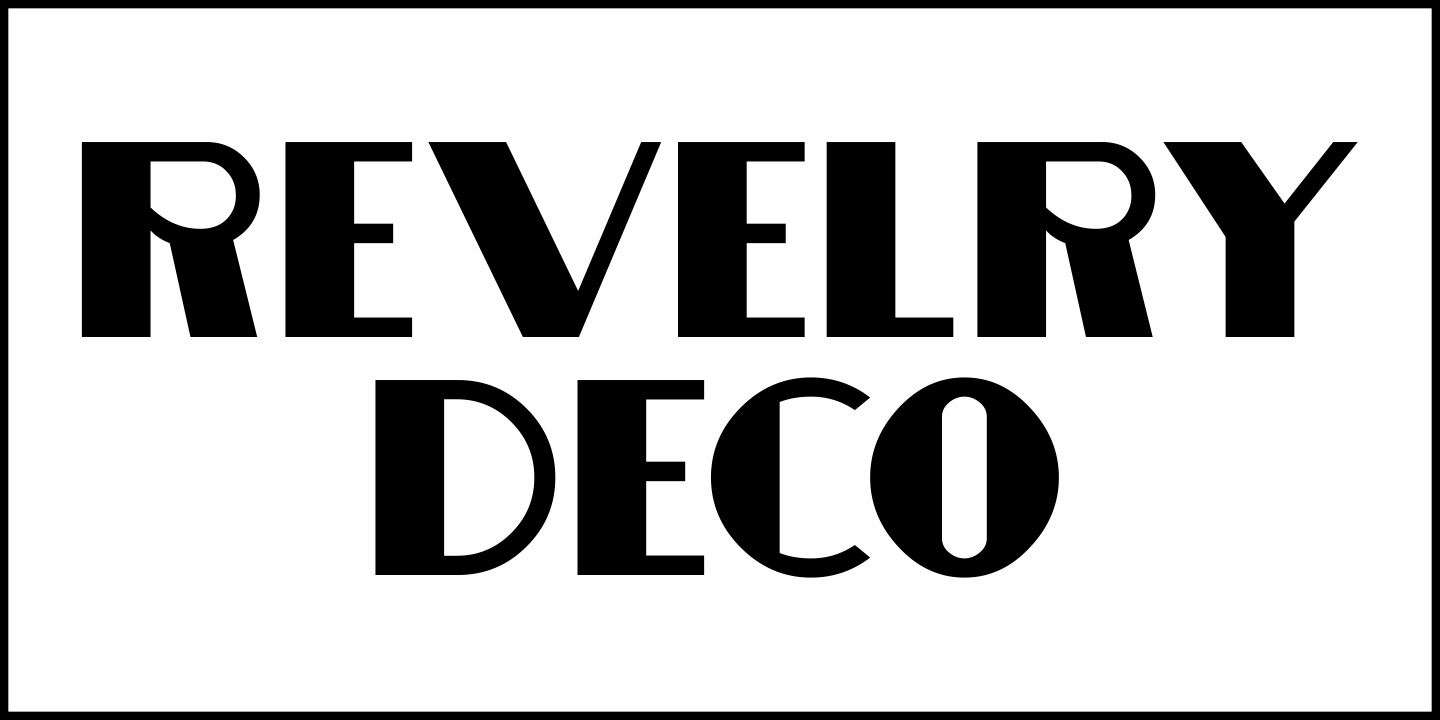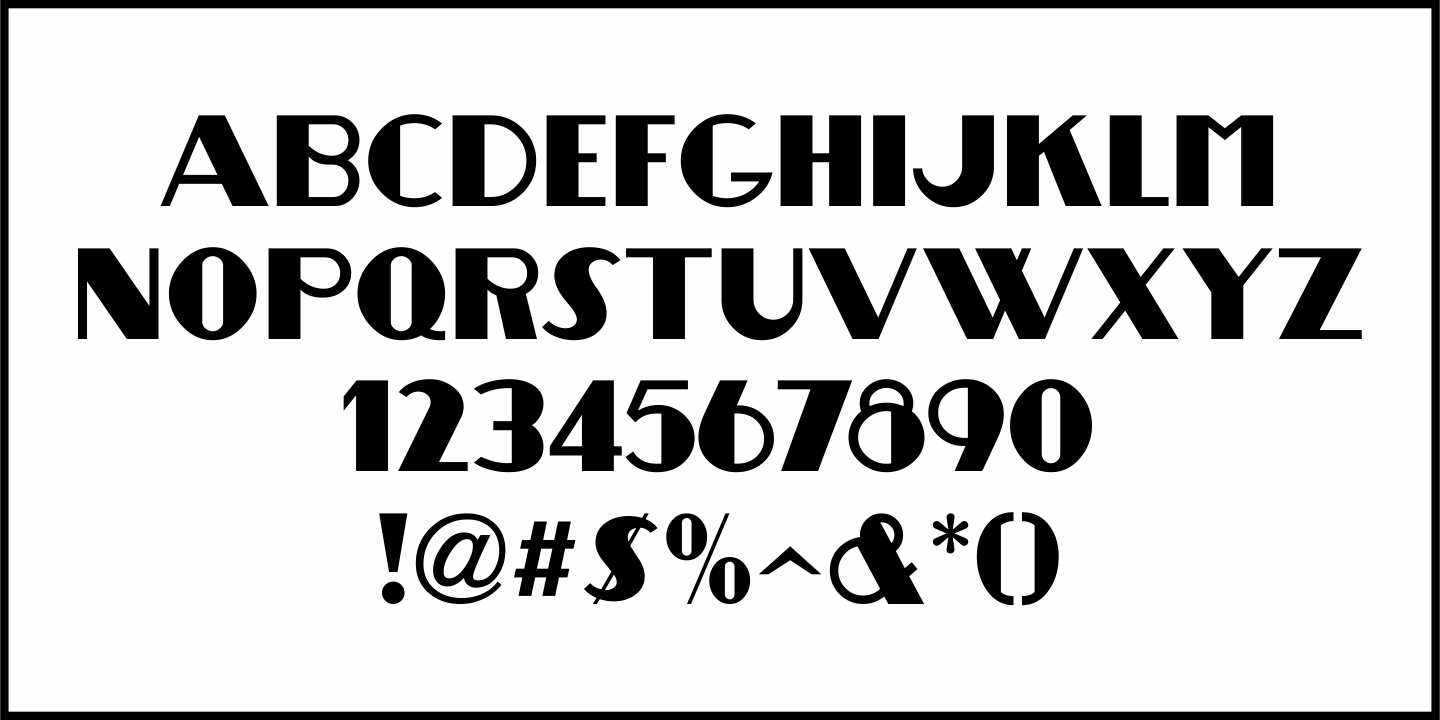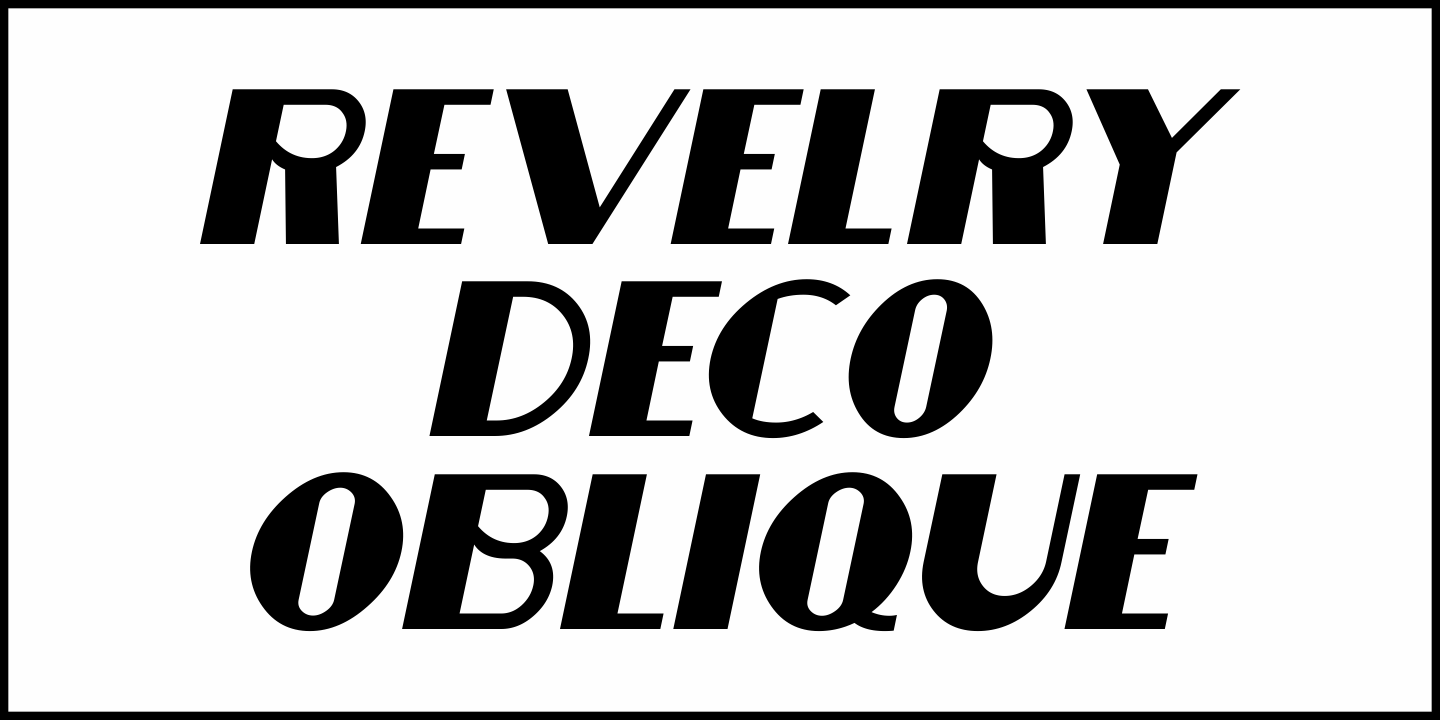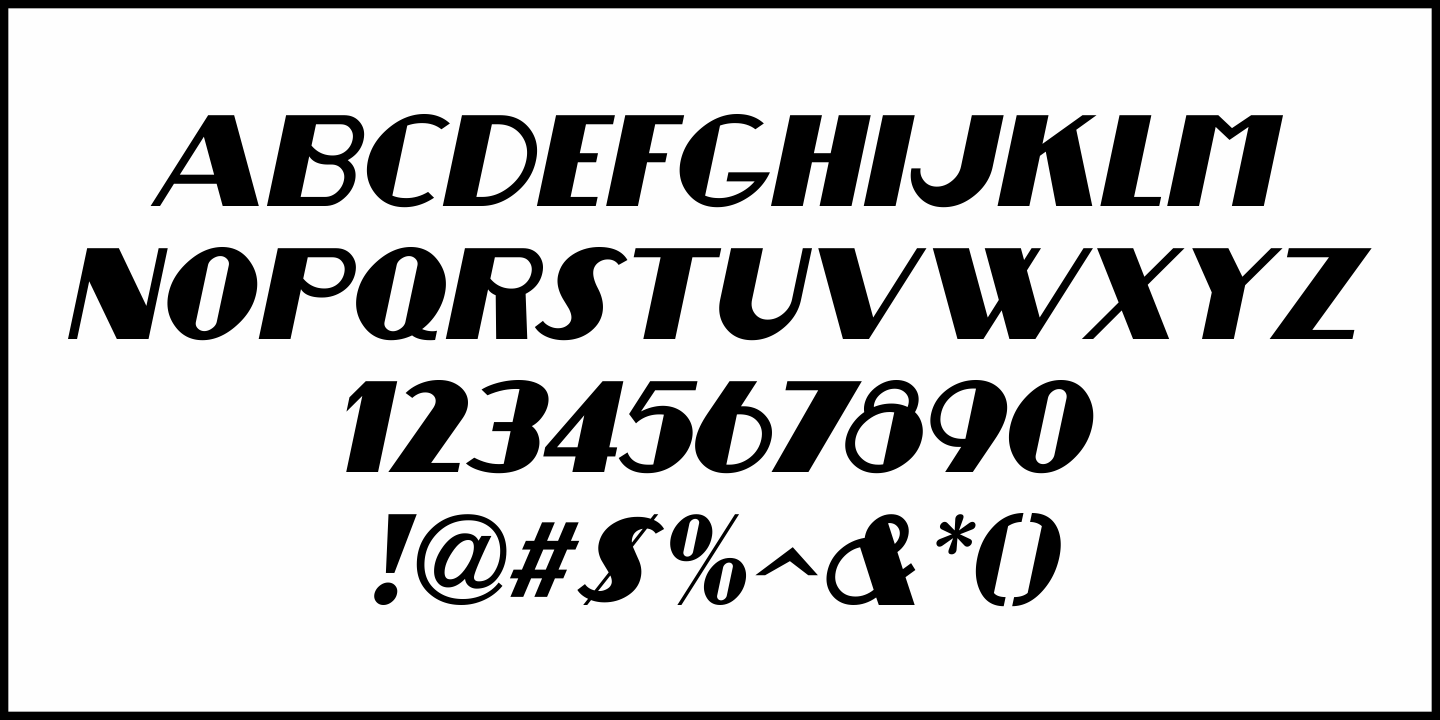
Revelry Deco
The namesake for this type design was the dust jacket for the 1926 book “Revelry”.
A classic Art Deco thick-and-thin design, Revelry Deco JNL is available in both regular and oblique versions.
Revelry Deco JNL Regular by Jeff Levine Fonts